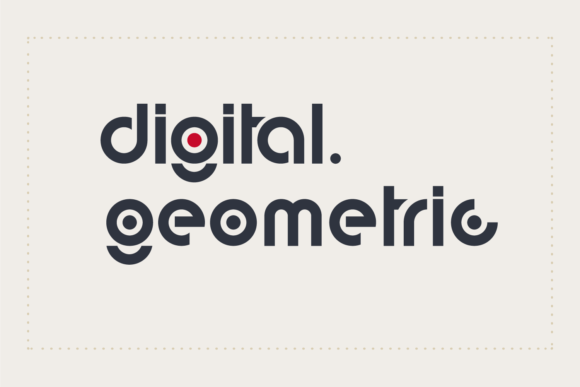
Digital Geometric Font: A Cool and Unique Display Font for Modern Designs
In the world of digital design, typography plays a crucial role in conveying messages and creating visual impact. With the rise of digital platforms, designers are constantly on the lookout for fonts that can add a touch of modernity and uniqueness to their designs. This is where the Digital Geometric Font comes in – a cool, unique, and assertive display font that is ideal for writing web designs, business cards, or pretty much anything else that requires a techno touch.
What is Digital Geometric Font?
Digital Geometric Font is a display font that features geometric shapes and clean lines, giving it a modern and techno-inspired look. The font is designed to be highly legible and versatile, making it perfect for a wide range of design applications. Its unique and assertive style makes it stand out from other fonts, adding a touch of sophistication and elegance to any design.
Key Features of Digital Geometric Font
- Geometric Shapes: The font features geometric shapes, such as circles, squares, and triangles, which give it a modern and techno-inspired look.
- Clean Lines: The font has clean and precise lines, making it highly legible and easy to read.
- Unique and Assertive: The font has a unique and assertive style that makes it stand out from other fonts.
- Versatile: The font is highly versatile and can be used for a wide range of design applications, from web designs to business cards.
Uses of Digital Geometric Font
Digital Geometric Font is ideal for a wide range of design applications, including:
- Web Designs: The font is perfect for web designs, adding a touch of modernity and uniqueness to websites and landing pages.
- Business Cards: The font is ideal for business cards, making them stand out and conveying a sense of professionalism and sophistication.
- Logos and Branding: The font can be used for logos and branding, adding a touch of modernity and uniqueness to brand identities.
- Advertising and Marketing: The font can be used for advertising and marketing materials, such as brochures, flyers, and posters.
Benefits of Using Digital Geometric Font
Using Digital Geometric Font offers several benefits, including:
- Uniqueness: The font adds a touch of uniqueness and modernity to designs, making them stand out from the crowd.
- Legibility: The font is highly legible, making it easy to read and understand.
- Versatility: The font is highly versatile and can be used for a wide range of design applications.
- Professionalism: The font conveys a sense of professionalism and sophistication, making it perfect for business and corporate designs.
Tips for Using Digital Geometric Font
Here are some tips for using Digital Geometric Font:
- Use it for Headings: The font is perfect for headings and titles, adding a touch of modernity and uniqueness to designs.
- Pair it with Other Fonts: The font can be paired with other fonts to create a unique and visually appealing design.
- Experiment with Colors: The font can be used with a wide range of colors, so experiment with different colors to find the perfect combination.
- Use it for Digital Designs: The font is perfect for digital designs, including web designs, social media graphics, and digital advertising.
In conclusion, Digital Geometric Font is a cool, unique, and assertive display font that is perfect for modern designs. Its geometric shapes, clean lines, and versatile style make it ideal for a wide range of design applications, from web designs to business cards. By using Digital Geometric Font, designers can add a touch of modernity and uniqueness to their designs, making them stand out from the crowd.